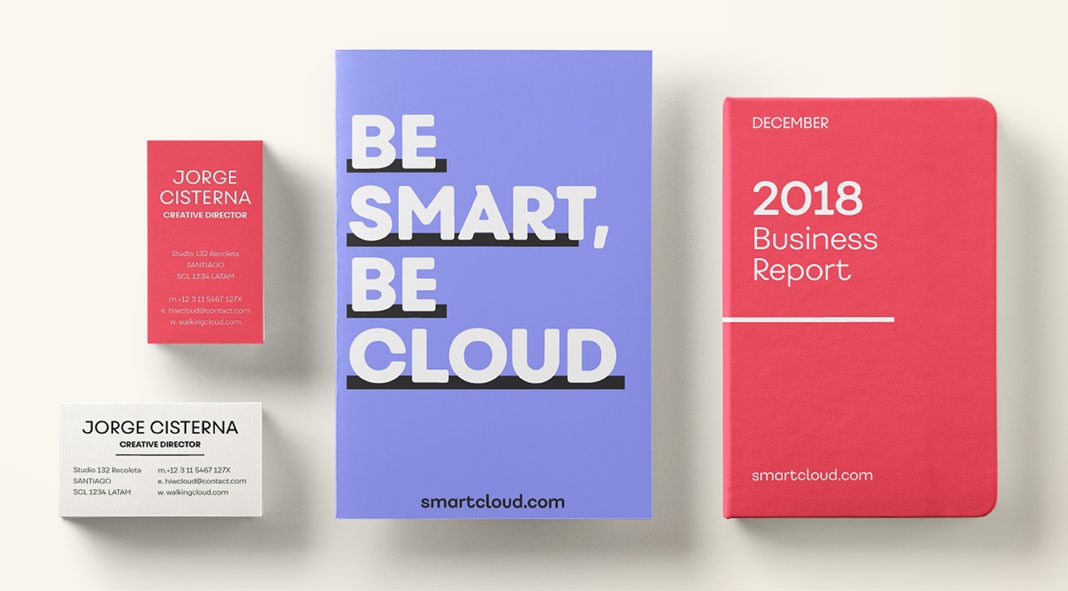
Fibra One, a new sans-inspired Avant Garde font family from type foundry Los Andes.
Designed in 2017/2018 by Jorge Cisterna for foundry Los Andes, the new Fibra One font family is based on a soft display typeface. With influences from the Avant-Garde font, its shapes differentiate from those found in its predecessor — the Fibra font. Its dynamic look is mainly characterized by both soft corners and smooth transitions between curved and straight sections. It was designed for display use but thanks to its generous x-height, it’s also a great choice for corporate text. Fibra One comprises 2 subfamilies — a basic version for the use in headings and subheadings as well as an Alt family that shows the true potential of the font, making it a great choice for magazine headlines, posters, and logotypes. For further information, just have a look at the images below or click on the following link.